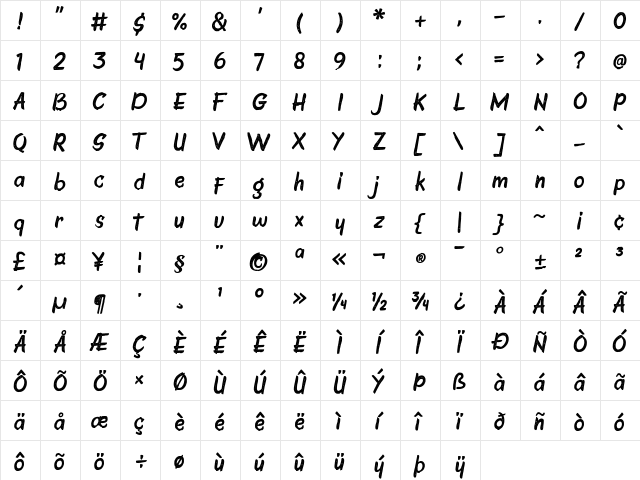
Faito Rough Regular
| Foundry | Haidi & Nasir Studio |
| Designer | Nasir Udin |
Design Context for Faito Rough Typeface
Faito Rough trades polish for personality, using distressed and eroded forms to bring grit and attitude to creative work.
A strong fit for alternative music projects, graffiti-adjacent design, and anything that deliberately resists polish.
Pro Tip: Use Faito Rough at larger sizes where the texture and irregularity of each letterform can be clearly seen — it loses its character at small sizes.